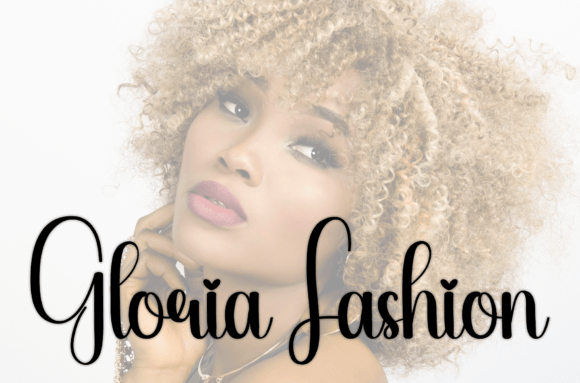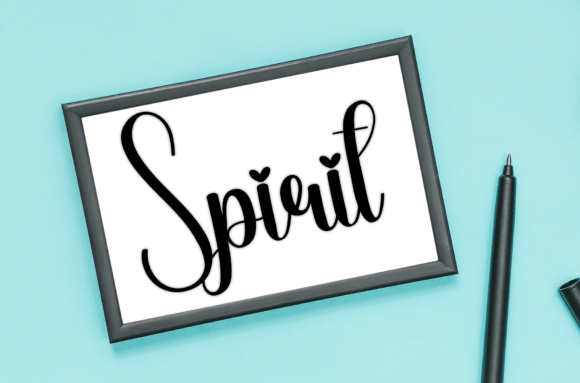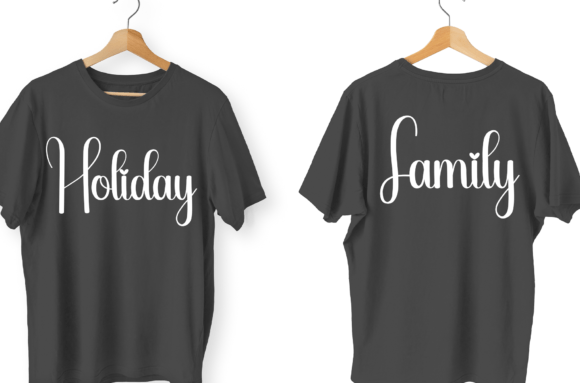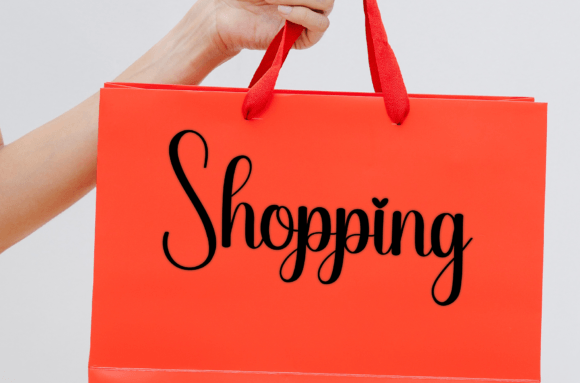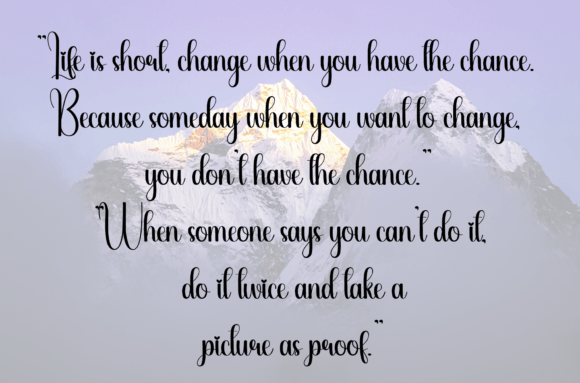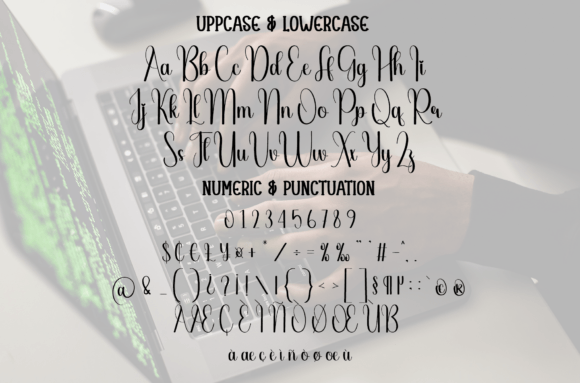
Introducing Feedback Font: The Sweet and Friendly Handwritten Font for Creative Designs
Are you looking for a font that can add a personal touch to your designs? Look no further than Feedback Font, a sweet and friendly handwritten font that’s perfect for creating unique and eye-catching designs. In this article, we’ll explore the features and benefits of Feedback Font, and show you how it can be used to take your designs to the next level.
A Creative and Versatile Font
Feedback Font is a creative and versatile font that’s ideal for a wide range of design projects. Whether you’re designing wedding invitations, cards, or other paper crafts, this font is sure to add a fun and playful touch. Its handwritten style gives it a personal and approachable feel, making it perfect for designs that require a human touch.
Key Features of Feedback Font
- Handwritten style: Feedback Font has a beautiful, handwritten style that’s perfect for adding a personal touch to your designs.
- Sweet and friendly: The font has a sweet and friendly feel that’s sure to make your designs stand out.
- Creative and versatile: Feedback Font can be used for a wide range of design projects, from wedding invitations to cards and other paper crafts.
- Easily readable: The font is clear and easy to read, making it perfect for designs that require a lot of text.
Uses for Feedback Font
Feedback Font is a versatile font that can be used for a wide range of design projects. Here are some ideas to get you started:
- Wedding invitations: Add a personal touch to your wedding invitations with Feedback Font.
- Cards: Use Feedback Font to create unique and eye-catching cards for special occasions.
- Paper crafts: Feedback Font is perfect for paper crafts, such as scrapbooking and card making.
- Signs: Use Feedback Font to create eye-catching signs for events and parties.
- Social media graphics: Add a personal touch to your social media graphics with Feedback Font.
Tips for Using Feedback Font
Here are some tips for using Feedback Font in your designs:
- Pair with other fonts: Feedback Font pairs well with other fonts, such as serif and sans-serif fonts.
- Use for headings and titles: Feedback Font is perfect for headings and titles, as it adds a personal touch to your designs.
- Experiment with colors: Feedback Font looks great in a variety of colors, so don’t be afraid to experiment.
- Use for digital and print designs: Feedback Font can be used for both digital and print designs, making it a versatile font for any project.
Feedback Font is a sweet and friendly handwritten font that’s perfect for adding a personal touch to your designs. Its creative and versatile style makes it ideal for a wide range of design projects, from wedding invitations to cards and other paper crafts. With its easily readable style and beautiful handwritten feel, Feedback Font is sure to become a favorite font in your design arsenal.